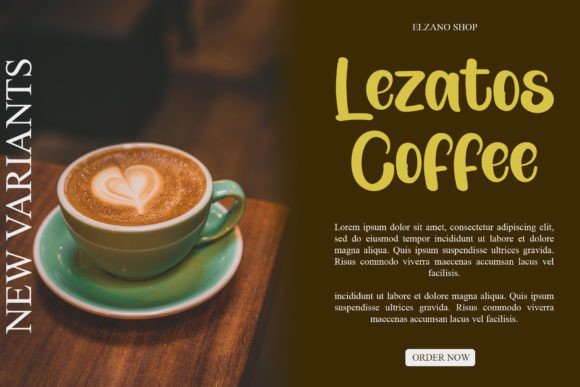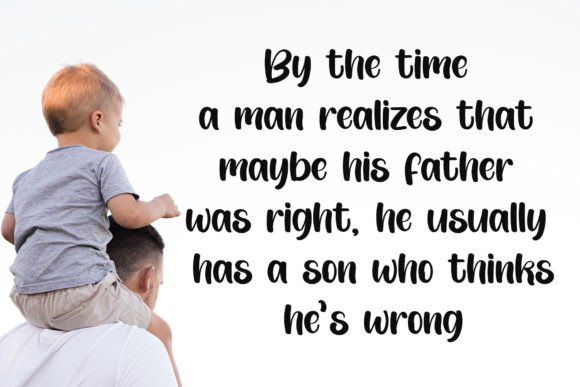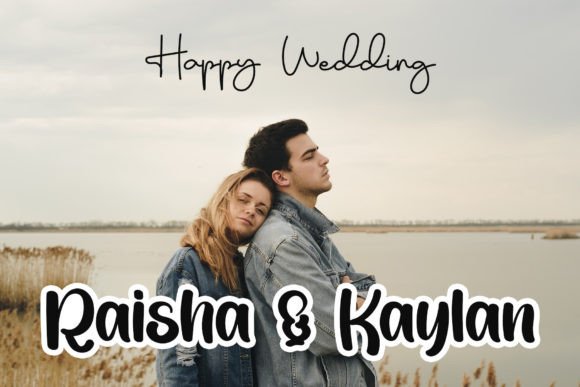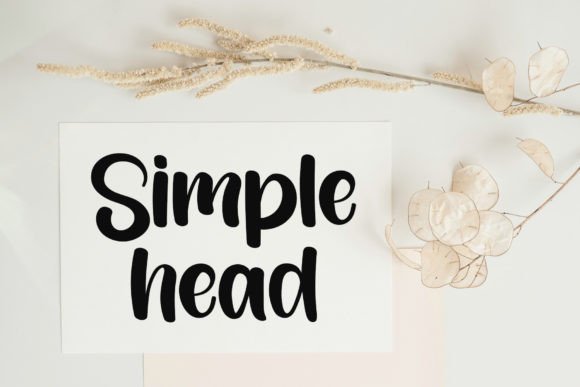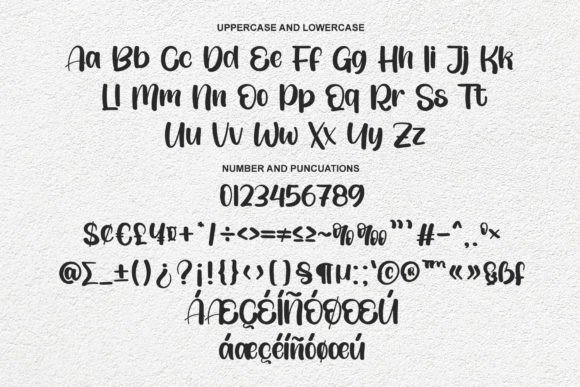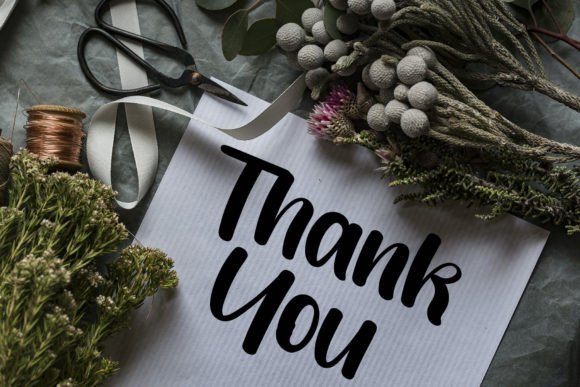
Discover the Charm of Backspace Font: A Beautiful Handwritten Masterpiece
Are you tired of using the same old fonts in your designs? Look no further than the stunning Backspace Font! This beautiful handwritten font is sure to capture your heart with its distinct and well-rounded letters, making it a true masterpiece. With its incredibly versatile style, Backspace Font is perfect for designers and crafters looking to add a touch of elegance and personality to their projects.
The Unique Characteristics of Backspace Font
Backspace Font boasts a unique and charming handwritten style that sets it apart from other fonts. Its letters are carefully crafted to be well-rounded and distinctive, giving the font a warm and inviting feel. The font’s versatility is one of its standout features, making it suitable for a wide range of design applications, from elegant wedding invitations to playful craft projects.
What Makes Backspace Font So Special?
- Distinctive Letters: Each letter in the Backspace Font is carefully designed to be unique and visually appealing, making it perfect for creating eye-catching designs.
- Well-Rounded Style: The font’s rounded edges and smooth curves give it a friendly and approachable feel, making it ideal for designs that require a personal touch.
- Versatility: Backspace Font can be used in a variety of design contexts, from formal events to casual craft projects, making it a valuable addition to any designer’s font library.
How to Use Backspace Font in Your Designs
Backspace Font is incredibly easy to use and can be incorporated into a wide range of design projects. Here are a few ideas to get you started:
- Wedding Invitations: Add a touch of elegance and romance to your wedding invitations with Backspace Font.
- Crafting Projects: Use Backspace Font to add a personal touch to your crafting projects, such as handmade cards, gift tags, and scrapbooking pages.
- Social Media Graphics: Create eye-catching social media graphics with Backspace Font to help your brand stand out.
- Logos and Branding: Use Backspace Font to create a unique and memorable logo or brand identity.
Tips and Tricks for Working with Backspace Font
To get the most out of Backspace Font, here are a few tips and tricks to keep in mind:
- Experiment with Font Sizes: Backspace Font looks great in a variety of font sizes, so don’t be afraid to experiment to find the perfect size for your design.
- Pair with Other Fonts: Backspace Font pairs well with a range of other fonts, so try combining it with other fonts to create a unique and visually appealing design.
- Use in Combination with Images: Backspace Font looks great when used in combination with images, so try incorporating it into your design along with a relevant image.
| Font Name | Backspace Font |
| Author | Bintang Studio |
In conclusion, Backspace Font is a beautiful handwritten font that is sure to capture your heart with its distinct and well-rounded letters. With its incredibly versatile style, Backspace Font is perfect for designers and crafters looking to add a touch of elegance and personality to their projects. Whether you’re creating wedding invitations, crafting projects, or social media graphics, Backspace Font is a valuable addition to any designer’s font library.